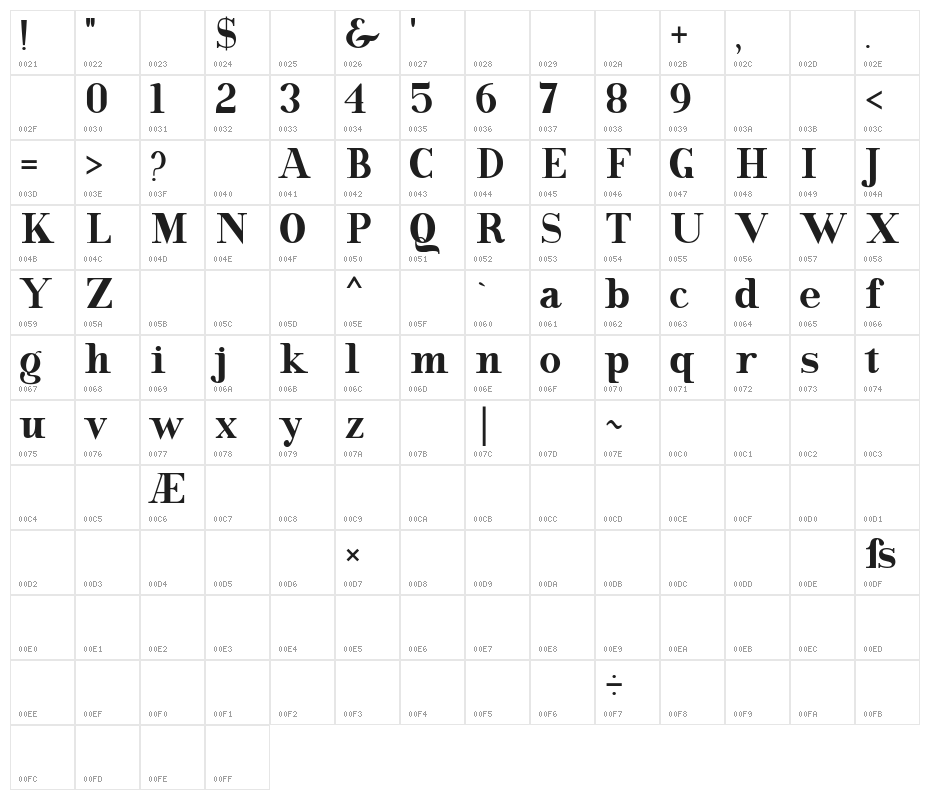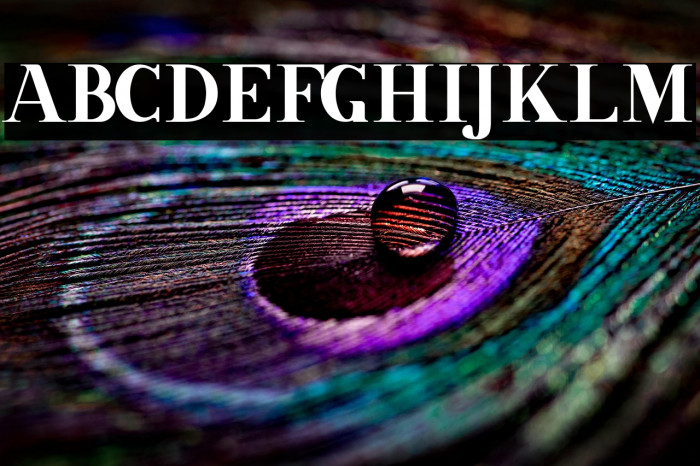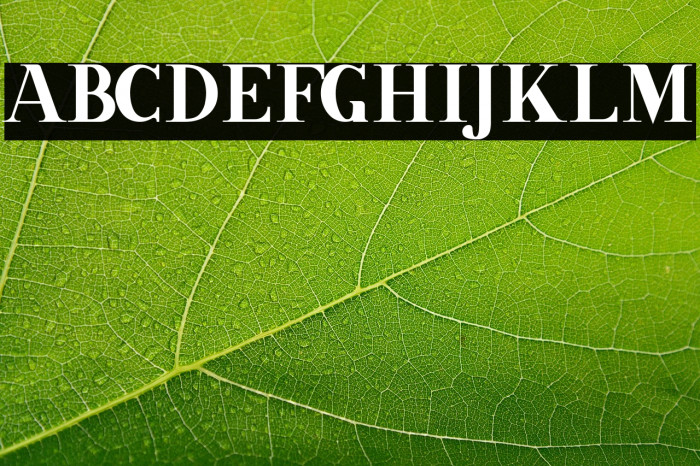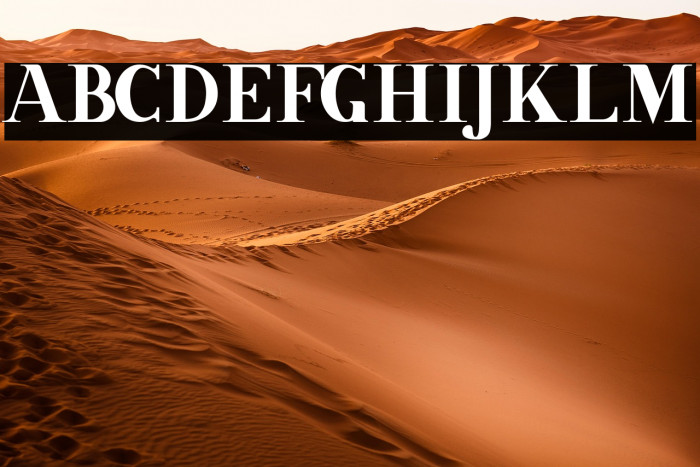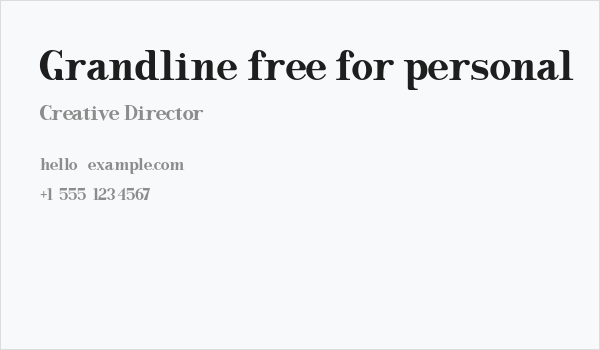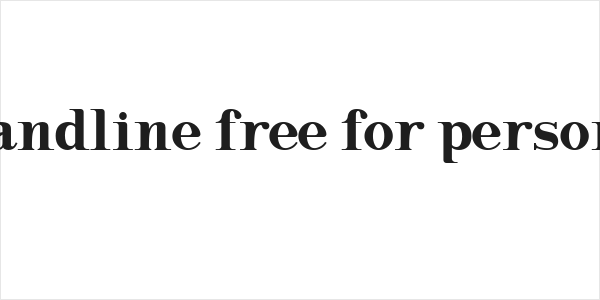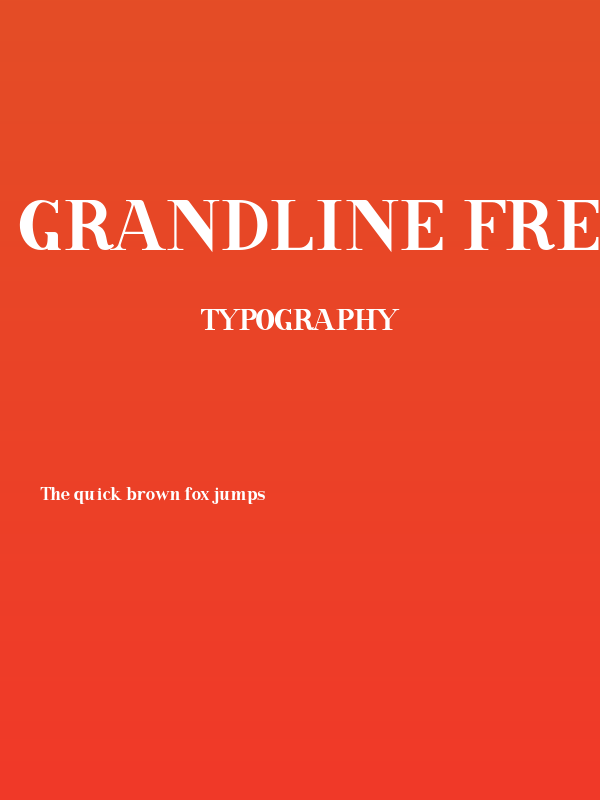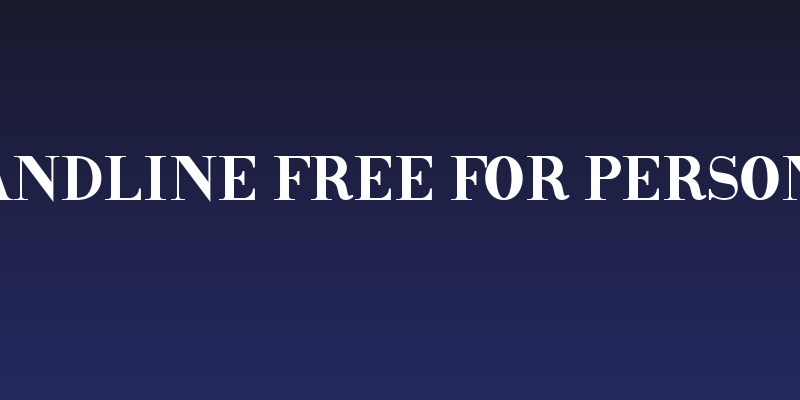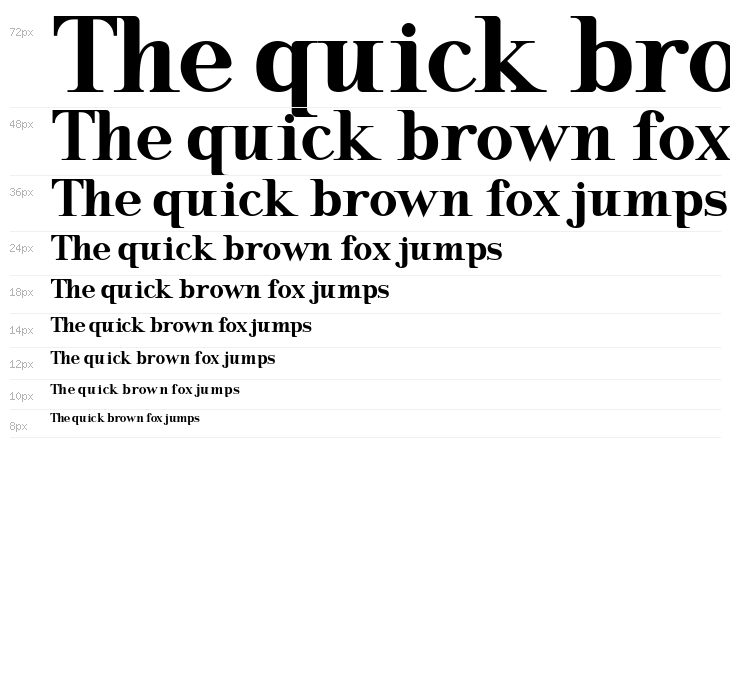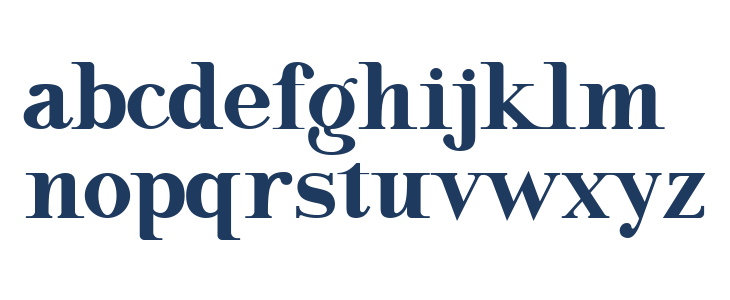
Grandline free for personal Font
Grandline free for personal Description
This font exhibits a classic serif style with a strong presence and elegant curves. The uppercase letters are bold and commanding, featuring sharp serifs that add a touch of sophistication. The lowercase letters maintain a consistent style, with smooth transitions and balanced proportions. Numbers are clear and legible, making them suitable for a variety of uses. Special characters are thoughtfully designed, complementing the overall aesthetic. The font's high contrast in stroke thickness enhances readability while adding a dynamic visual appeal.
| Use Case | Headlines, Logos, Editorial design |
| Proposed Projects | Ideal for editorial design, book covers, branding, and formal invitations. |